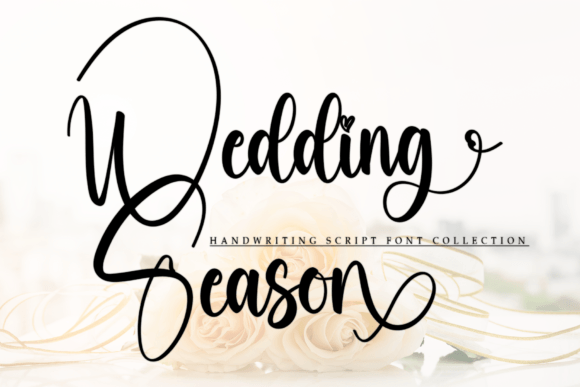
In the world of typography, Wedding Season Font stands as a beacon of sophistication and charm, a script font family that exudes elegance and grace. With its sweeping curves and delicate flourishes, this font is a true masterpiece, crafted meticulously by the talented Creatype Designer.
As a designer, you understand the importance of selecting the perfect font for your creative projects. Whether you're working on wedding invitations, thank-you cards, heartfelt quotes, or eye-catching greeting cards, Wedding Season Font is your ideal companion. Its versatility extends to logos, business cards, and any other design project that demands a touch of handwritten artistry.
But why settle for ordinary when you can embrace the extraordinary? Wedding Season Font is not merely a collection of letters and symbols; it's an expression of your unique style and discerning taste. Its PUA encoding opens up a world of possibilities, allowing you to effortlessly access a treasure trove of glyphs and alternates, giving you the freedom to mold the font to your creative vision.
Picture this: a wedding invitation adorned with the beautiful strokes of Wedding Season Font, conveying the joy and romance of the momentous occasion. Or envision a thank-you card, its heartfelt message enhanced by the elegant curves of this script font, expressing your gratitude with a touch of timeless charm.
With Wedding Season Font, your designs transcend the mundane and become captivating works of art. Let your imagination soar as you explore the endless creative possibilities that await you. This font is your gateway to a world of beauty and sophistication, where every letter tells a story and every word captivates the senses.
Don't let your designs be confined by ordinary fonts. Embrace the allure of Wedding Season Font and unlock a world of creative possibilities. Let your designs blossom with a touch of elegance and grace, and let Wedding Season Font be your guiding light on this artistic journey.